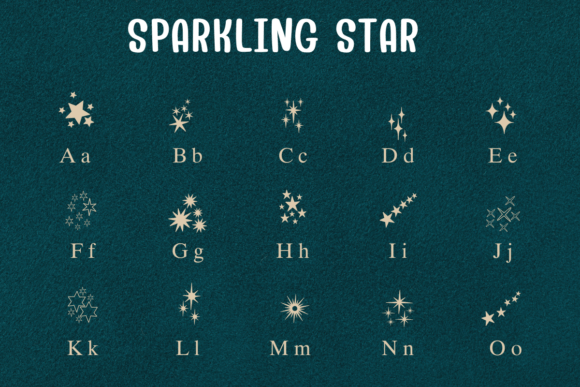
Sparkling Star Font
Add a burst of magic to your designs with Sparkling Star, a whimsical dingbats font packed with radiant star-themed doodles. From twinkling constellations to charming shooting stars, each glyph sparkles with personality. Ideal for planners, children’s books, party invitations, and celestial-themed projects, this font brings instant charm and joy to any layout.